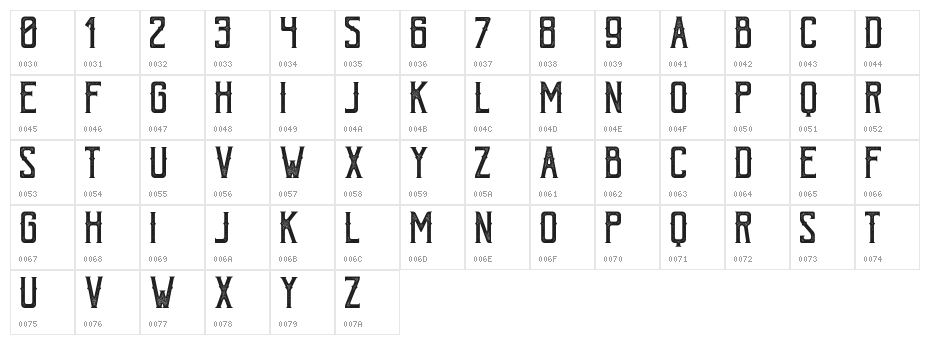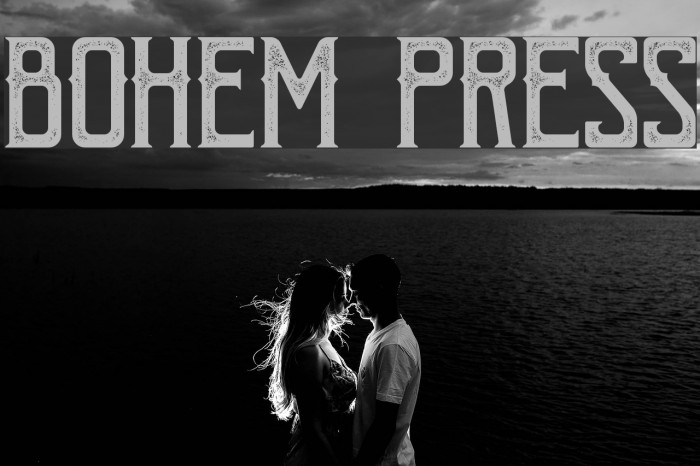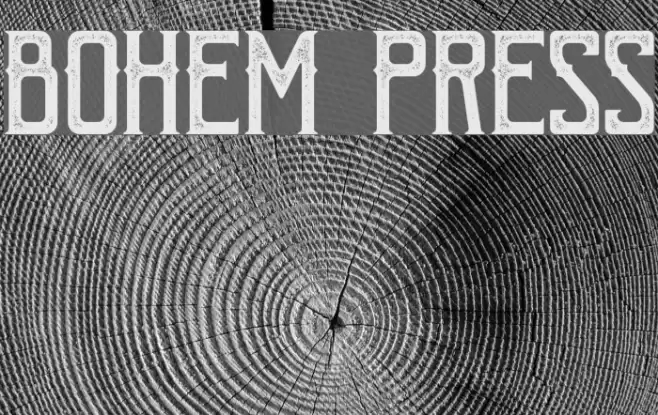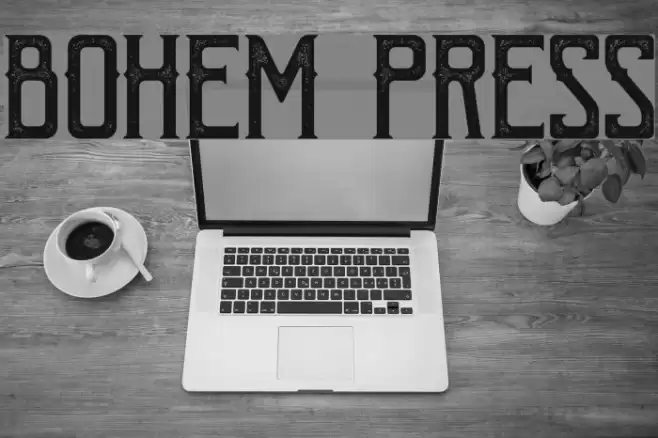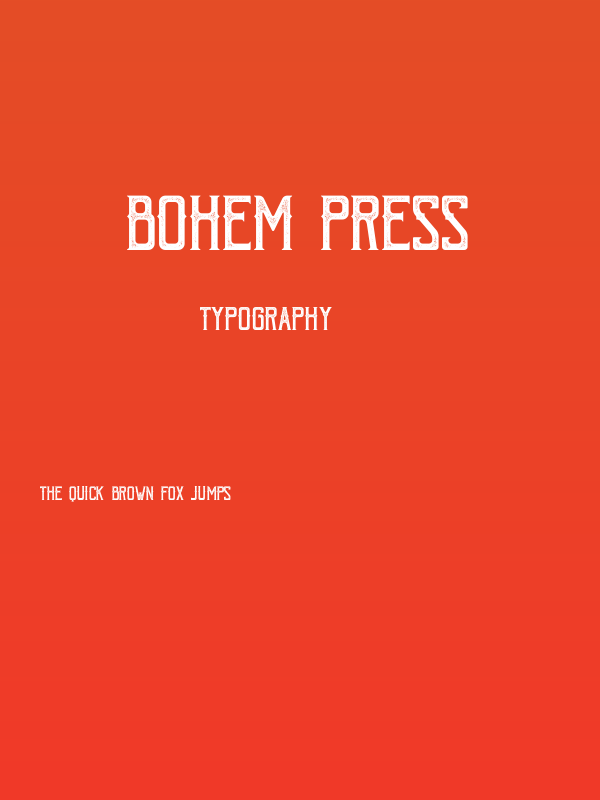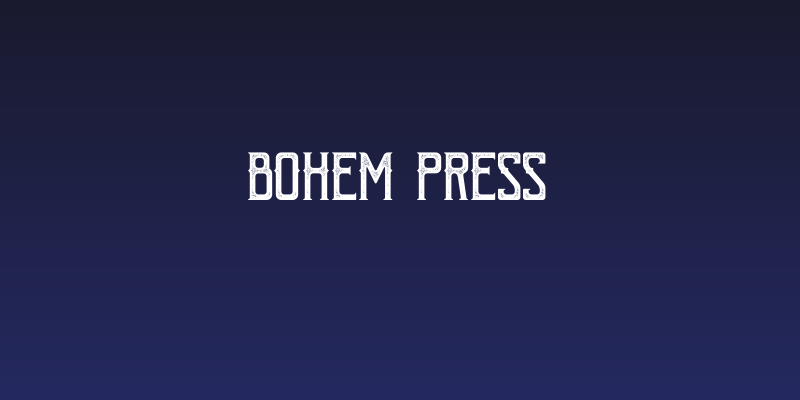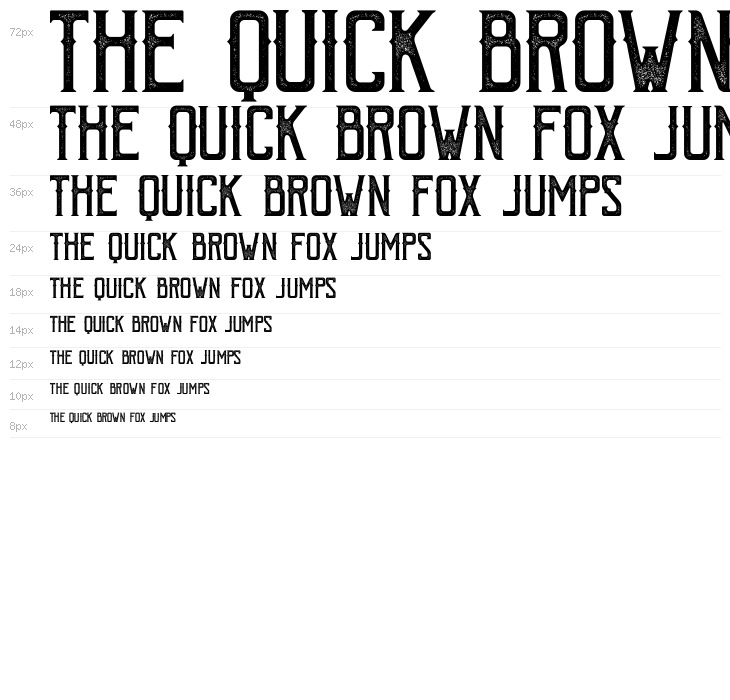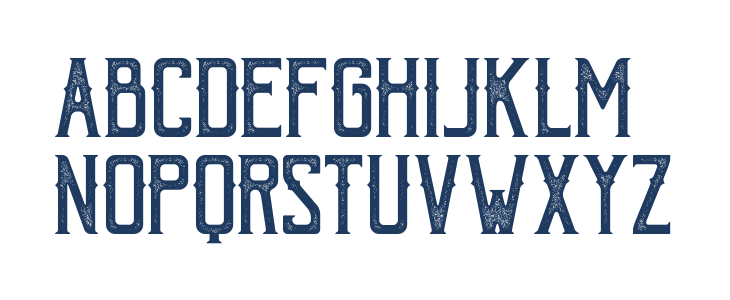
Bohem Press Font
Bohem Press Description
This font features a bold, decorative style with a distressed texture that gives it a vintage, worn appearance. The characters are tall and narrow, with sharp, angular serifs that add a touch of elegance and sophistication. The distressed effect is consistent across all characters, creating a cohesive look that is both eye-catching and unique. The uppercase letters are particularly striking, with their elongated forms and intricate detailing. This font is perfect for projects that require a bold statement, such as posters, headlines, or branding materials. Its distinctive style makes it ideal for conveying a sense of history and character.
| Proposed Projects | Ideal for posters, headlines, branding, and any project needing a bold, vintage look. |